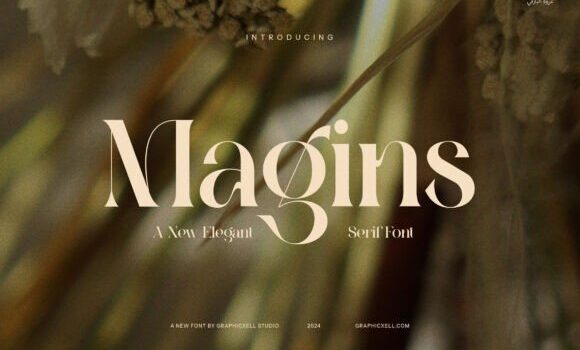
magins
Magins Font – Free Download Introduction to Magins Font Magins is a beautifully crafted typeface that combines vintage charm with timeless elegance. 📸 Preview Gallery 6 images 📌 Product Name Magins Font 👤 Author Graphicxell 📂 Category Explore ⬇️ Download